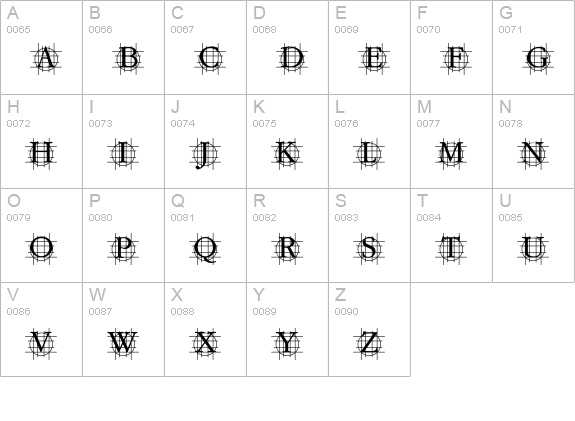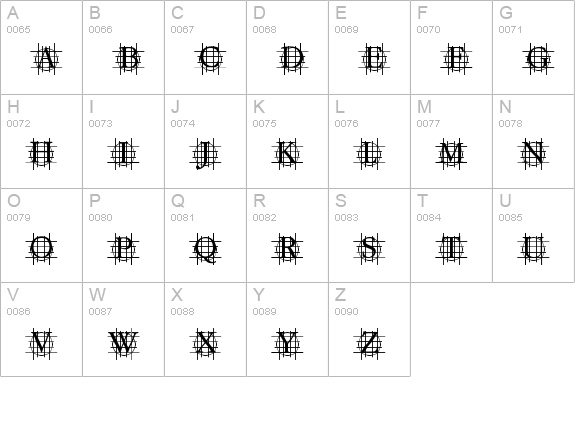
GrafBold Bold is a strong, high-contrast variant in the GrafBold typeface family \xE2\x80\x94 well suited to headlines, attention-grabbing titles, and strong calls-to-action.
GrafBold Bold font is a striking and modern typeface that exudes confidence and strength. Its bold and impactful design makes it perfect for headlines, titles, and branding projects that demand attention. The strong, clean lines of GrafBold Bold font give your text a bold presence on any design layout. Best of all, GrafBold Bold font is completely free to download at FontsMarket.com. This means you can easily access this powerful font for your creative projects without any cost. Don't miss out on this opportunity to enhance your designs with the bold and dynamic look of GrafBold Bold font. Download it today and make a bold statement with your typography!